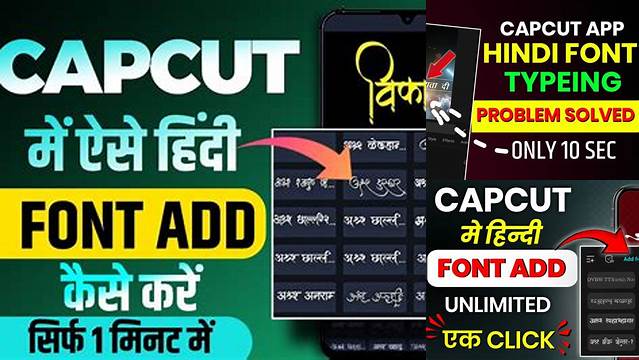
Hindi Fonts For CapCut: Free Download & Tutorial
Hey guys! Are you looking to spice up your CapCut videos with some awesome Hindi fonts? You've come to the right place! In this article, we'll dive deep into the world of Hindi fonts for CapCut, covering everything from where to download them to how to install and use them. Get ready to make your videos pop with authentic and stylish Hindi typography!
1. Understanding the Importance of Hindi Fonts in Video Editing
Hindi fonts play a crucial role in video editing when you're targeting a Hindi-speaking audience. Using the right font can significantly enhance the emotional impact and clarity of your message. Imagine creating a beautiful travel vlog about India; using a visually appealing Hindi font for your titles and subtitles will instantly connect with your viewers on a deeper level. It’s not just about translating words; it's about conveying the cultural essence and making the content relatable. Different fonts evoke different feelings, too. A bold, strong font can emphasize an important point, while a more elegant, flowing font might be perfect for romantic or artistic content. Choosing the correct font is an important aspect of the video creation process, as the font will impact viewer’s perception of the video. When choosing a font, ask yourself: Does the font match the video's tone? Is the font readable on different screen sizes? Does the font fit the theme of your video? By carefully considering these aspects, you can ensure that your Hindi fonts amplify your message effectively.
6. Best Practices for Using Hindi Fonts in Your Videos
Using Hindi fonts effectively in your videos requires more than just installing and adding them. It's about using them strategically to enhance your message and engage your audience. Always prioritize readability. Choose fonts that are clear and easy to read, even on smaller screens. Avoid overly decorative fonts that might distract viewers. Pay attention to font size and spacing. Make sure the text is large enough to be easily seen, and adjust the spacing between letters and lines to improve readability. Use contrasting colors to make the text stand out against the background. For example, white text on a dark background or vice versa. Be consistent with your font choices. Use the same font family throughout your video to maintain a cohesive look and feel. Consider the emotional tone of your video. Choose fonts that match the mood and style of your content. A playful font might be perfect for a children's video, while a more serious font might be better for a documentary. By following these best practices, you can ensure that your Hindi fonts enhance your videos and effectively communicate your message to your audience.
7. Exploring Different Styles of Hindi Fonts
The world of Hindi fonts is vast and diverse, offering a wide range of styles to suit any project. From traditional Devanagari scripts to modern, stylized designs, there's a Hindi font out there for every video. Traditional fonts, like Mangal and Kruti Dev, are classic choices that evoke a sense of authenticity and tradition. These fonts are often used in formal settings or when you want to convey a sense of history and culture. Modern fonts, on the other hand, offer a more contemporary look and feel. These fonts often feature clean lines and minimalist designs, making them perfect for tech videos or vlogs. Calligraphic fonts add a touch of elegance and sophistication. These fonts are inspired by traditional handwriting and feature flowing, artistic strokes. Display fonts are bold and eye-catching, perfect for titles and headings. These fonts are designed to grab attention and make a statement. By exploring different styles of Hindi fonts, you can find the perfect font to match the tone and style of your video. Don't be afraid to experiment and try new things until you find a font that truly resonates with your vision.
8. Mixing and Matching Hindi Fonts for Visual Appeal
While consistency is important, don't be afraid to get creative and mix and match Hindi fonts to create visual interest in your videos. A good rule of thumb is to limit yourself to two or three different fonts per project. Use one font for headings and titles and another for body text. This creates a visual hierarchy and makes your content more engaging. When mixing fonts, choose fonts that complement each other. For example, pair a bold display font with a clean, readable body font. Avoid using fonts that are too similar, as this can create a cluttered and confusing look. Also, pay attention to the overall style of your fonts. Mix fonts that share a similar aesthetic or mood. For example, pair a traditional Devanagari font with a modern sans-serif font for a unique blend of old and new. Experiment with different combinations until you find a mix that works for your video. Remember, the goal is to create visual harmony and make your content more appealing to your audience. By mastering the art of mixing and matching Hindi fonts, you can take your videos to the next level.
9. Creating Custom Hindi Font Templates in CapCut
To save time and maintain consistency across your videos, consider creating custom Hindi font templates in CapCut. This allows you to quickly apply your favorite font combinations and text styles to new projects without having to recreate them from scratch. To create a template, start by creating a text layer with your desired Hindi font, size, color, and effects. Once you're happy with the look, save it as a template. You can then reuse this template in future projects by simply selecting it from your template library. Customize your templates to include different font combinations for headings, body text, and captions. This makes it easy to create visually appealing videos with consistent typography. Share your templates with other CapCut users to collaborate and share creative ideas. Creating custom font templates is a great way to streamline your video editing workflow and ensure that your videos always look their best. Take advantage of this feature to save time and create visually stunning content.
30. The Future of Video Editing with AI-Powered Font Tools
The future of video editing is likely to be heavily influenced by AI-powered font tools, making it easier and more efficient to work with Hindi fonts. AI could automate the process of font selection, suggesting the best fonts for your video based on its content and style. AI could also generate custom fonts based on your preferences, saving you time and effort. AI-powered tools could automatically adjust the spacing and kerning of fonts to improve readability. AI could also translate text into different languages and automatically format it using appropriate fonts. These AI-powered tools could significantly streamline the video editing workflow and empower creators to produce high-quality content more efficiently. As AI technology continues to evolve, we can expect to see even more innovative and transformative applications in the field of video editing.